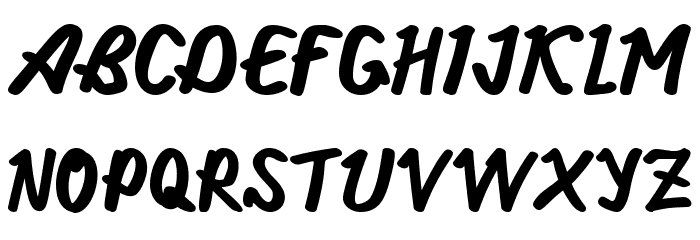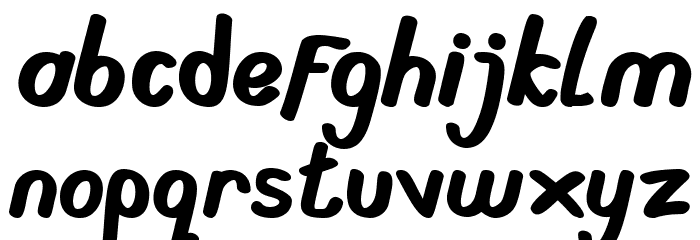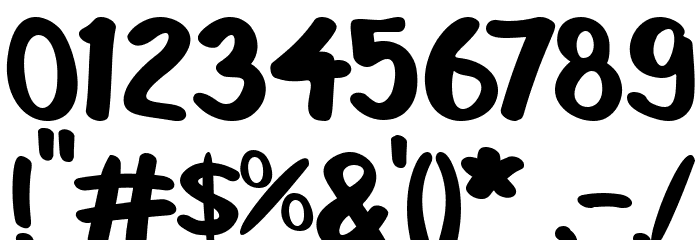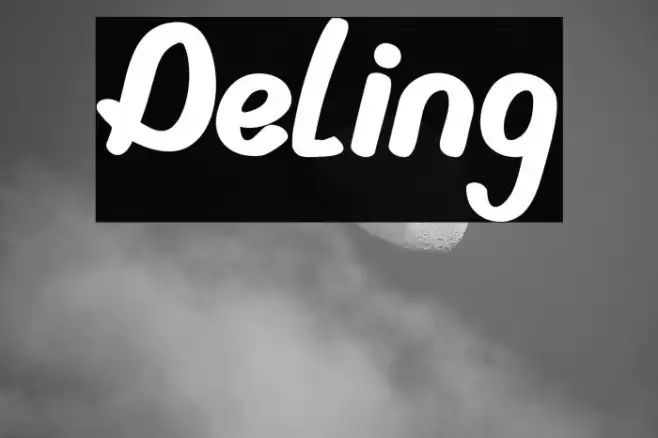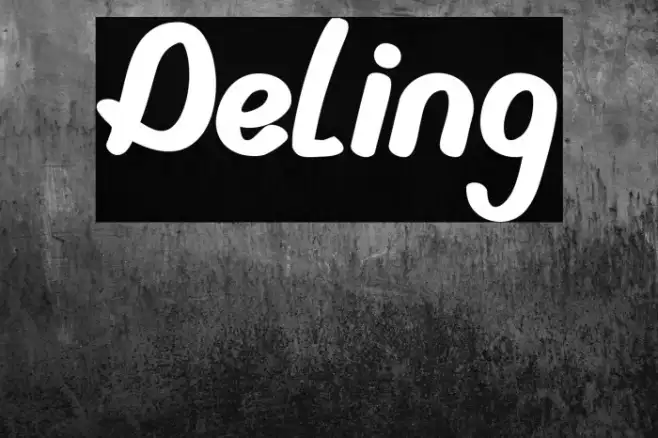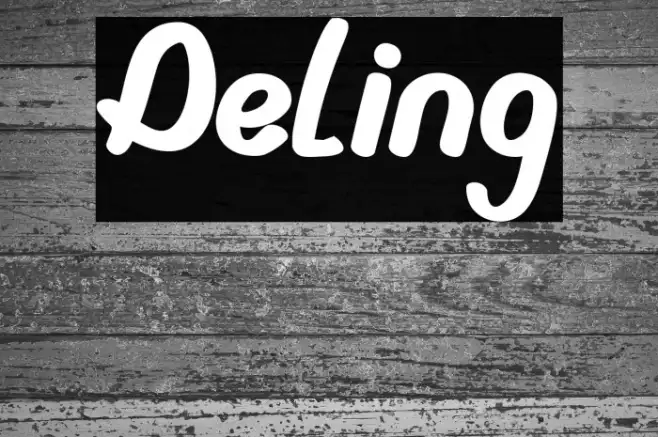
Deling Font
This font exudes a playful and energetic vibe with its bold, rounded strokes and slightly irregular shapes. The letters have a handwritten quality, giving them a casual and approachable feel. The uppercase and lowercase characters maintain a consistent style, with a slight slant that adds to the dynamic appearance. The numbers and special characters are equally bold and expressive, ensuring readability while maintaining the font's unique character. This font is perfect for projects that require a touch of whimsy and creativity, such as children's books, playful branding, or informal invitations.
A bold, playful handwritten font with rounded strokes and a dynamic slant.
- Font: Deling
- Proposed Projects: Ideal for children's books, playful branding, informal invitations, and creative posters.
- Category: Handwritten
- Overall Style: Playful